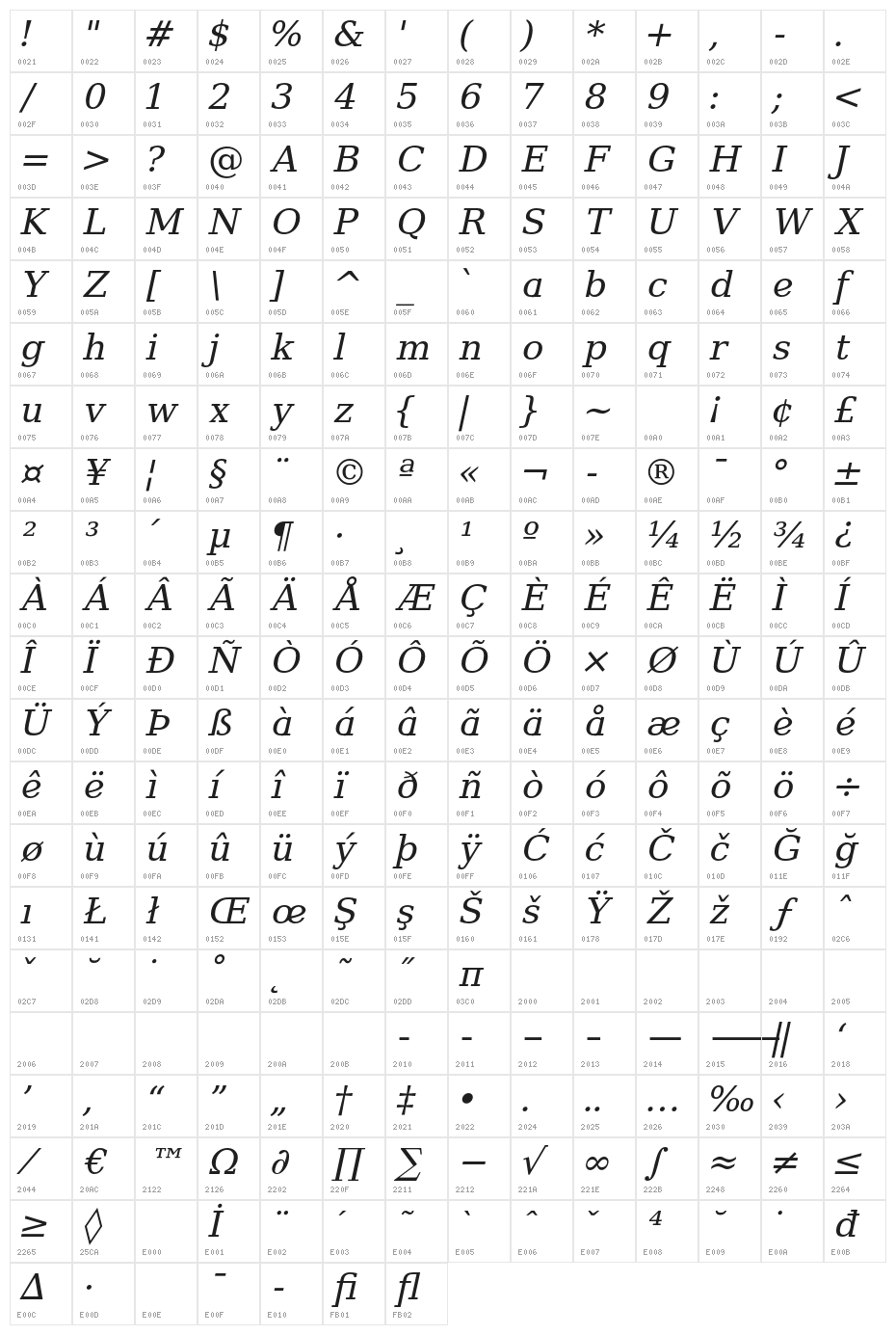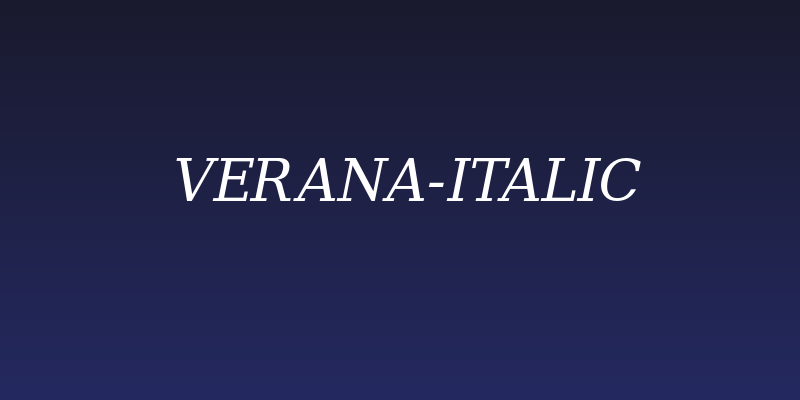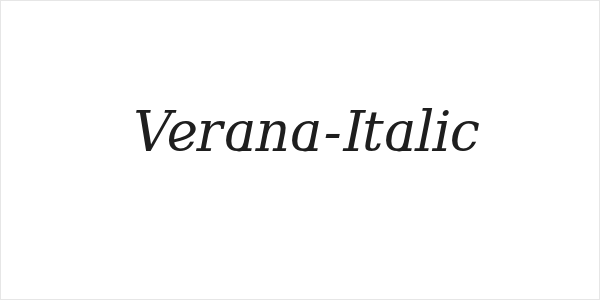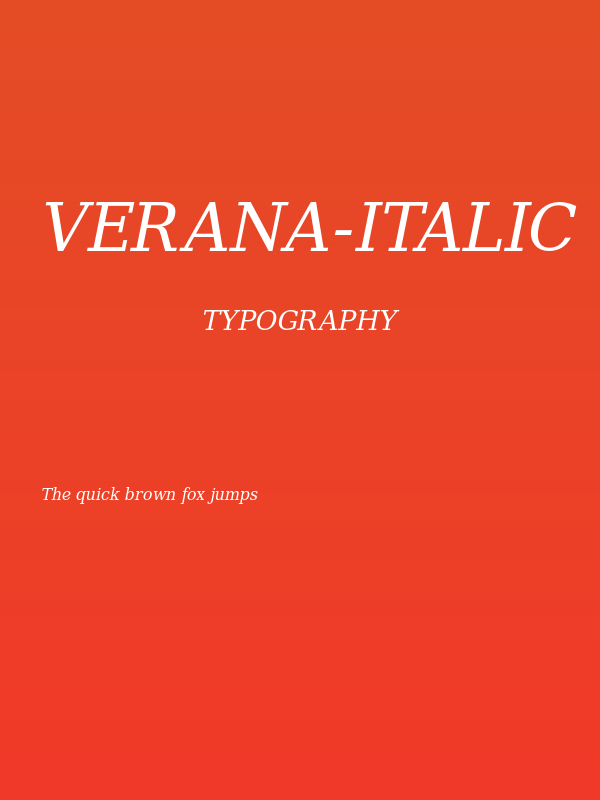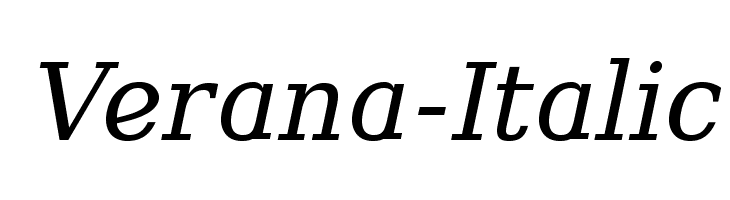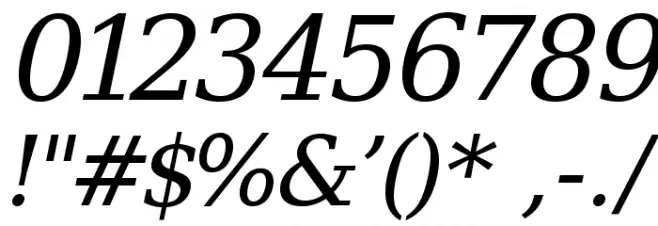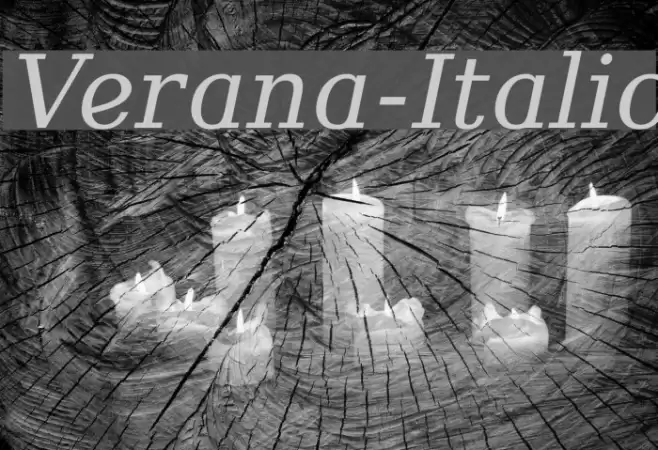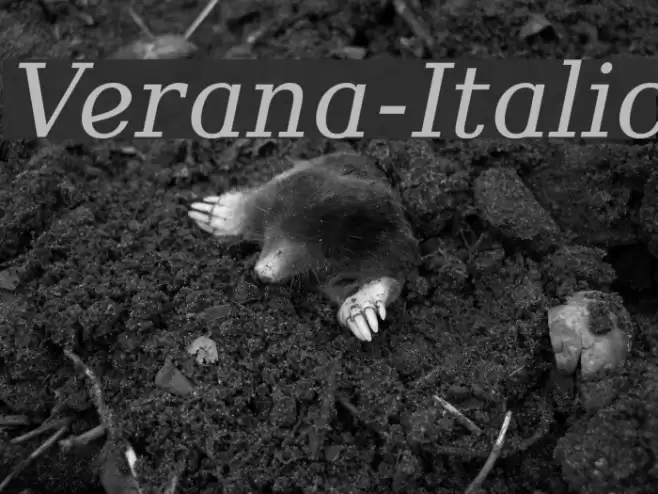
Verana-Italic Font
Verana-Italic Description
This font exhibits a classic serif style with a distinct italic slant, giving it an elegant and sophisticated appearance. The characters are well-proportioned, with a moderate contrast between thick and thin strokes, enhancing readability while maintaining a stylish look. The serifs are subtle yet pronounced, adding a touch of tradition to the overall design. The spacing between characters is balanced, ensuring clarity and legibility across various text sizes. This font is versatile, suitable for both digital and print media, and can be used effectively in a range of design projects.
| Overall Style | Classic |
| Use Case | Headlines, Body text, Logos |
| Proposed Projects | Ideal for editorial design, book covers, formal invitations, and branding materials. |